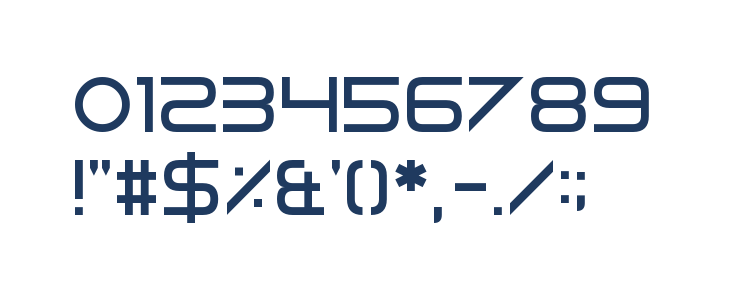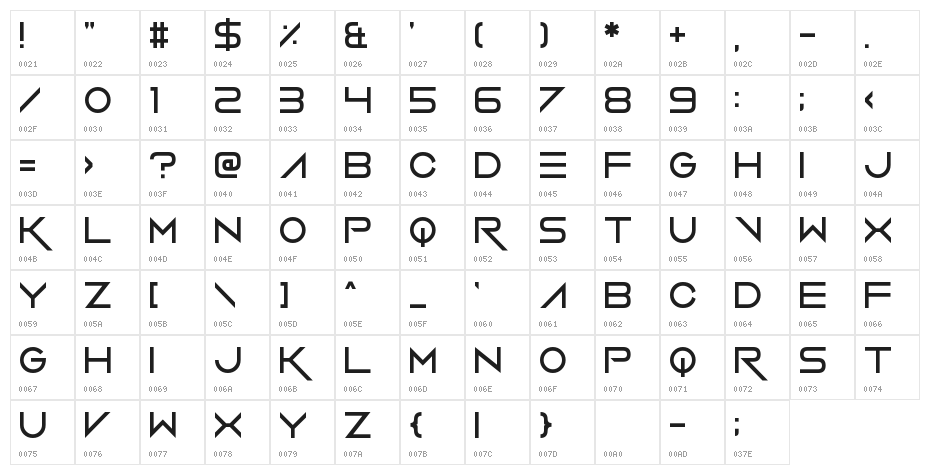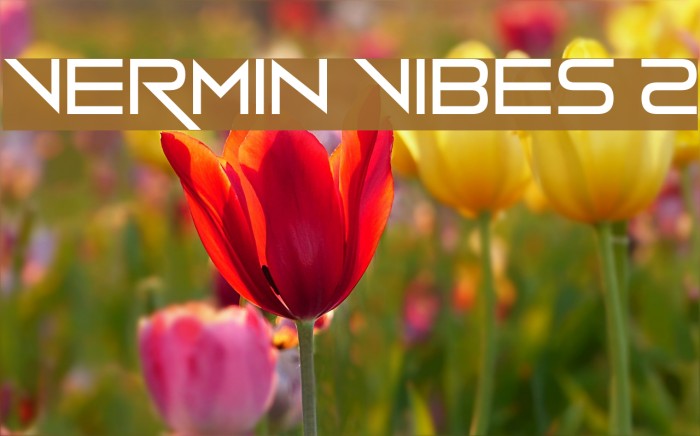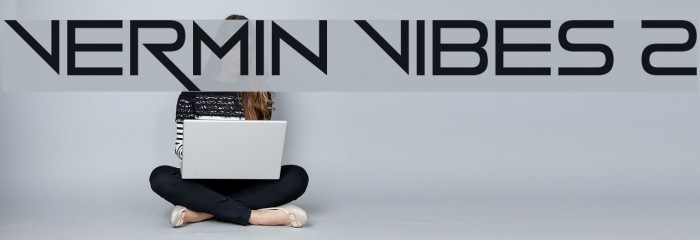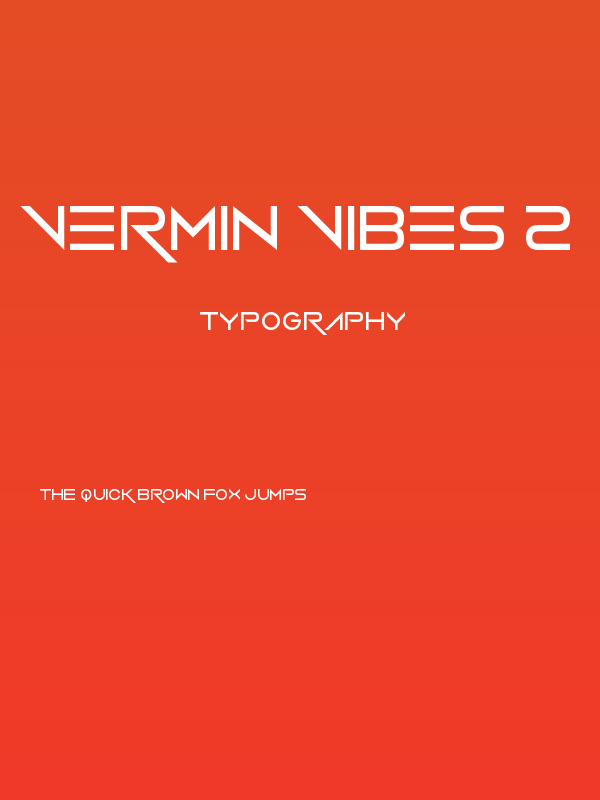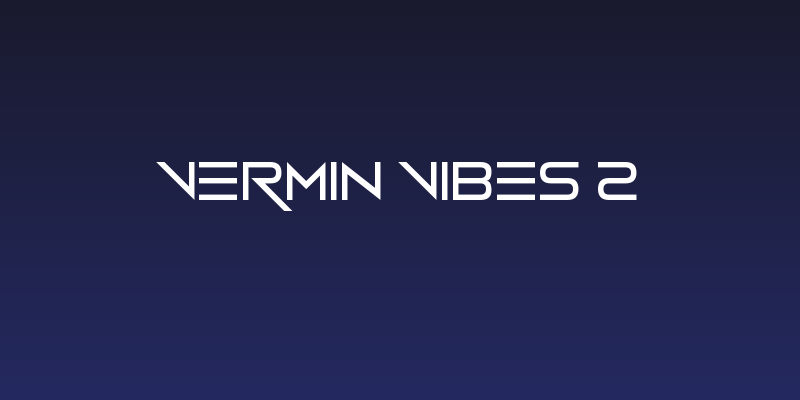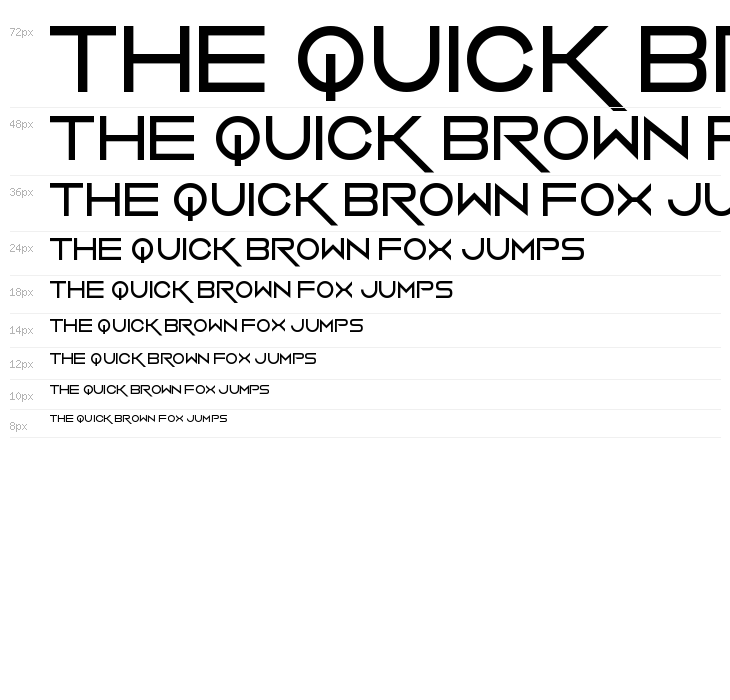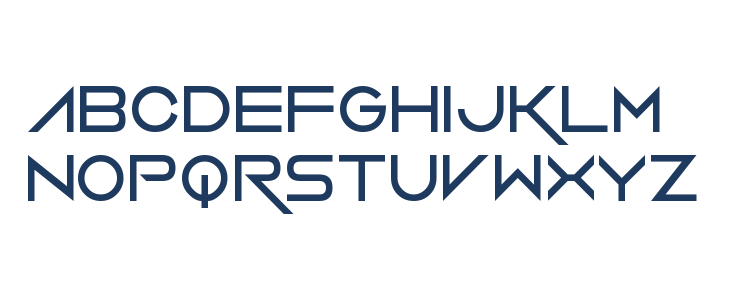
Vermin Vibes 2 Font
Vermin Vibes 2 Description
This font features a futuristic and geometric design with sharp angles and clean lines. The uppercase letters are distinct with a unique style, particularly noticeable in characters like 'A', 'E', and 'R', which incorporate angular cuts and extended strokes. The lowercase letters maintain a consistent geometric style, offering a cohesive look across the alphabet. Numbers follow the same design principles, ensuring uniformity. Special characters are crafted with the same attention to detail, making them suitable for a variety of design applications. The overall aesthetic is modern and sleek, making it ideal for projects that require a contemporary and edgy feel.
| Proposed Projects | Ideal for tech branding, sci-fi themed designs, modern posters, and digital interfaces. |